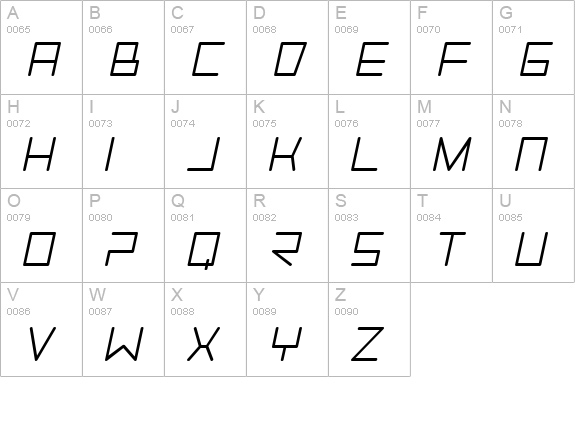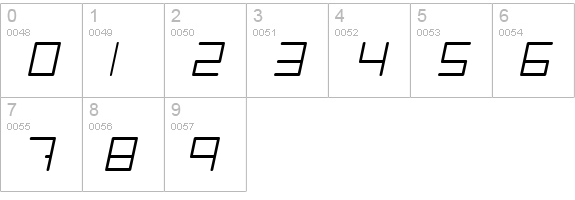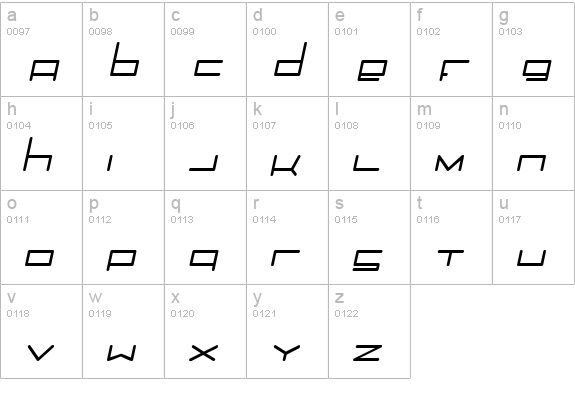
Trancemission MediumItalic Font Details
Trancemission MediumItalic font is a mesmerizing and captivating typeface that effortlessly combines elegance and modernity. Its sleek and slanted letterforms exude a sense of dynamism and energy, making it the perfect choice for projects that demand a touch of sophistication and style. This font's unique MediumItalic variant adds an extra layer of intrigue and personality to any design. With its slightly tilted and italicized characters, Trancemission MediumItalic brings a sense of movement and fluidity to your typography, making it particularly well-suited for headlines, logos, and branding materials. But what truly sets Trancemission MediumItalic apart is the fact that it is free. That's right, this stunning font is freely available to download at FontsMarket.com. Whether you're a professional designer or simply an enthusiast looking to add some flair to your personal projects, Trancemission MediumItalic gives you the opportunity to access high-quality typography without breaking the bank. So go ahead and unleash your creativity with Trancemission MediumItalic. Its bold and captivating presence, combined with its affordability, makes it the ideal choice for anyone seeking to make a lasting impression. Download Trancemission MediumItalic today from FontsMarket.com and elevate your designs to new heights.